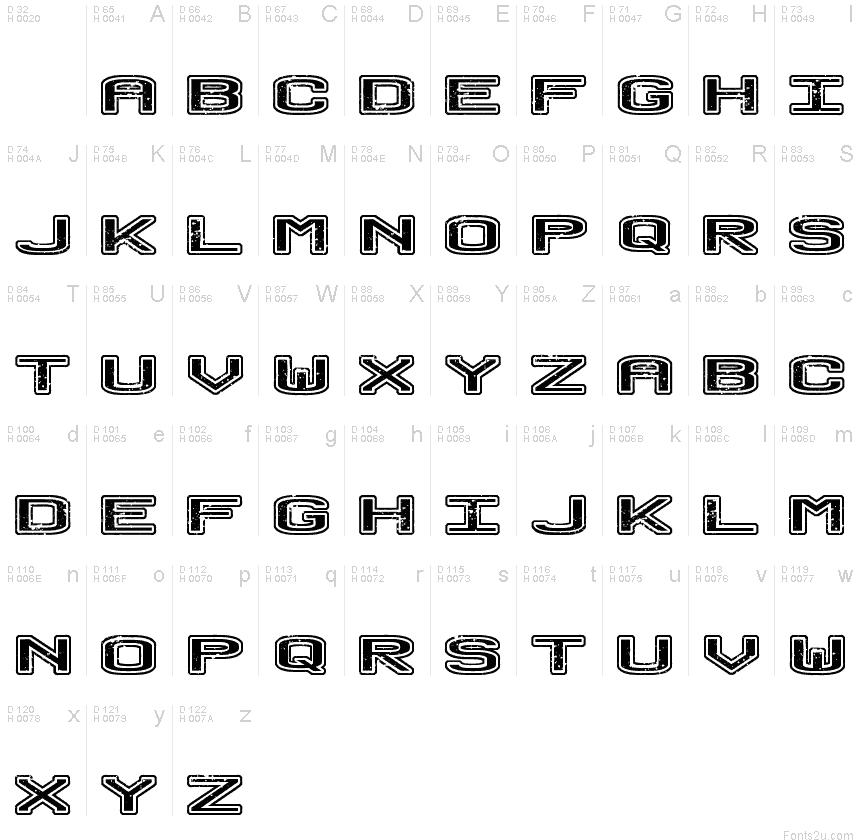
No Honor Roll by Chi Media Fonts is a free eroded display font with the broad, squared build of athletic lettering. Double-line edges give the letters a layered, badge-like structure. Scattered chips and scratches roughen the otherwise disciplined geometry.
Its battered varsity style suits school event posters and sports merchandise with a rebellious streak. It also suits concert graphics. On youth apparel or skate branding, the outlined forms can become a ready-made emblem for the product.
No Honor Roll Regular is a font by chi media fonts, designed by chris vile in 2012.